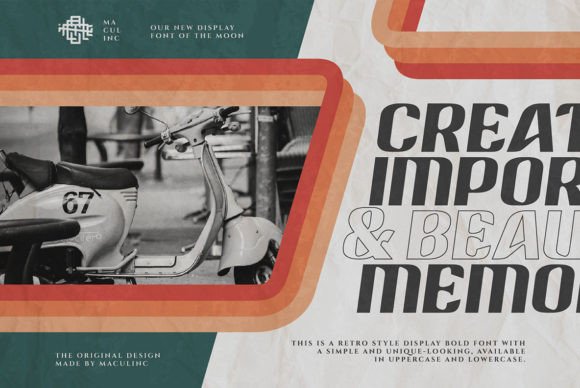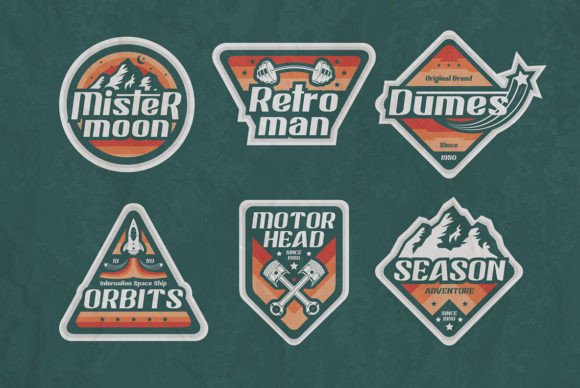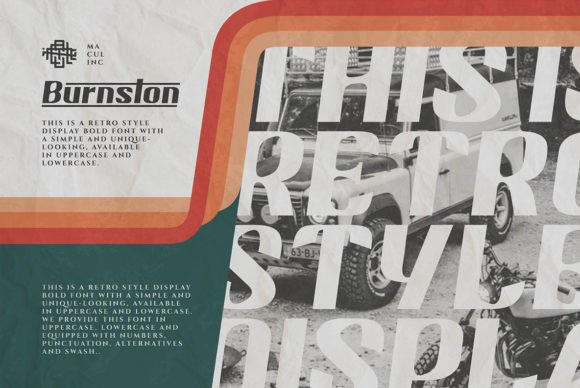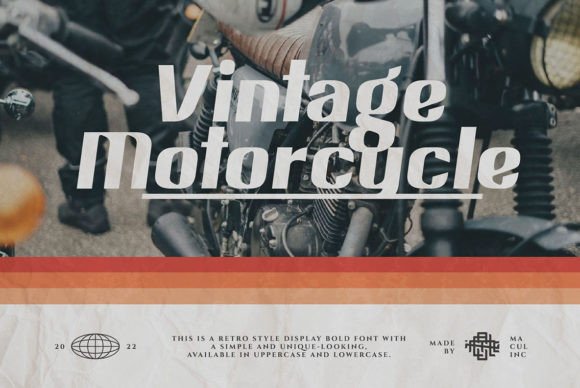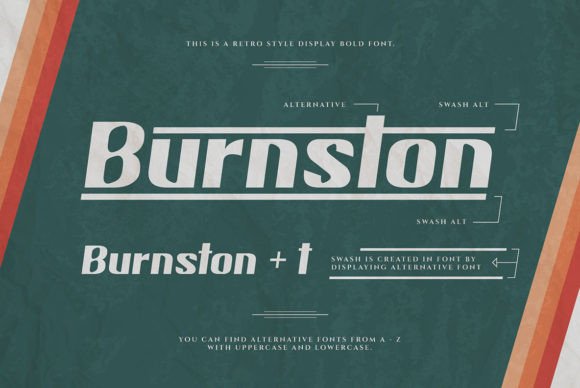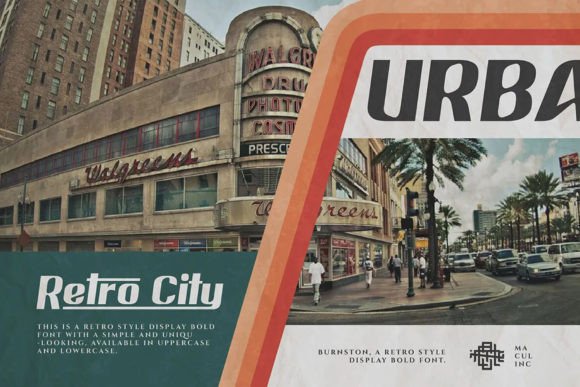
The Retro Charm of Burnston Font: A Designer’s Delight
This bold font with a simple and unique retro concept has been a game-changer for me. Whether I’m using it for cartoon-related designs, children’s games, quotes, titles, brand names, book covers, posters, or just any creation that requires a vintage touch, Burnston Font is always a great choice.
- ✨ Unique retro concept that adds a touch of nostalgia to any design
- ✅ Bold and eye-catching, making it perfect for titles and headings
- 💡 Highly versatile, suitable for a wide range of design projects
- 🎉 Easy to read, even in smaller sizes
While Burnston Font is an excellent choice for many design projects, there are a few things to keep in mind: 🤔
- ⚠️ Limited availability of OpenType features, which might limit its use in certain design software
- ⚠️ Might not be the best choice for body text, as it’s a bold font and can be overwhelming for longer blocks of text
- Use the font for headings, titles, and other design elements to add a touch of retro charm to your document
The Designer Inspiration Behind Burnston Font
The story behind Burnston Font is one of passion and creativity. The designer, inspired by the retro fonts of the 1950s and 1960s, set out to create a font that would capture the essence of that era. With its bold and simple design, Burnston Font is a testament to the power of good design.
Q: What is the best use for Burnston Font?
A: Burnston Font is perfect for titles, headings, and other design elements that require a bold and eye-catching font. It’s also great for adding a touch of nostalgia to your design.
Q: Is Burnston Font suitable for body text?
A: While Burnston Font is a great font, it’s not the best choice for body text. Its bold design can be overwhelming for longer blocks of text.
Q: Is Burnston Font available in different styles?
A: Burnston Font is available in a single style, but its simplicity and versatility make it easy to use in a wide range of design projects.